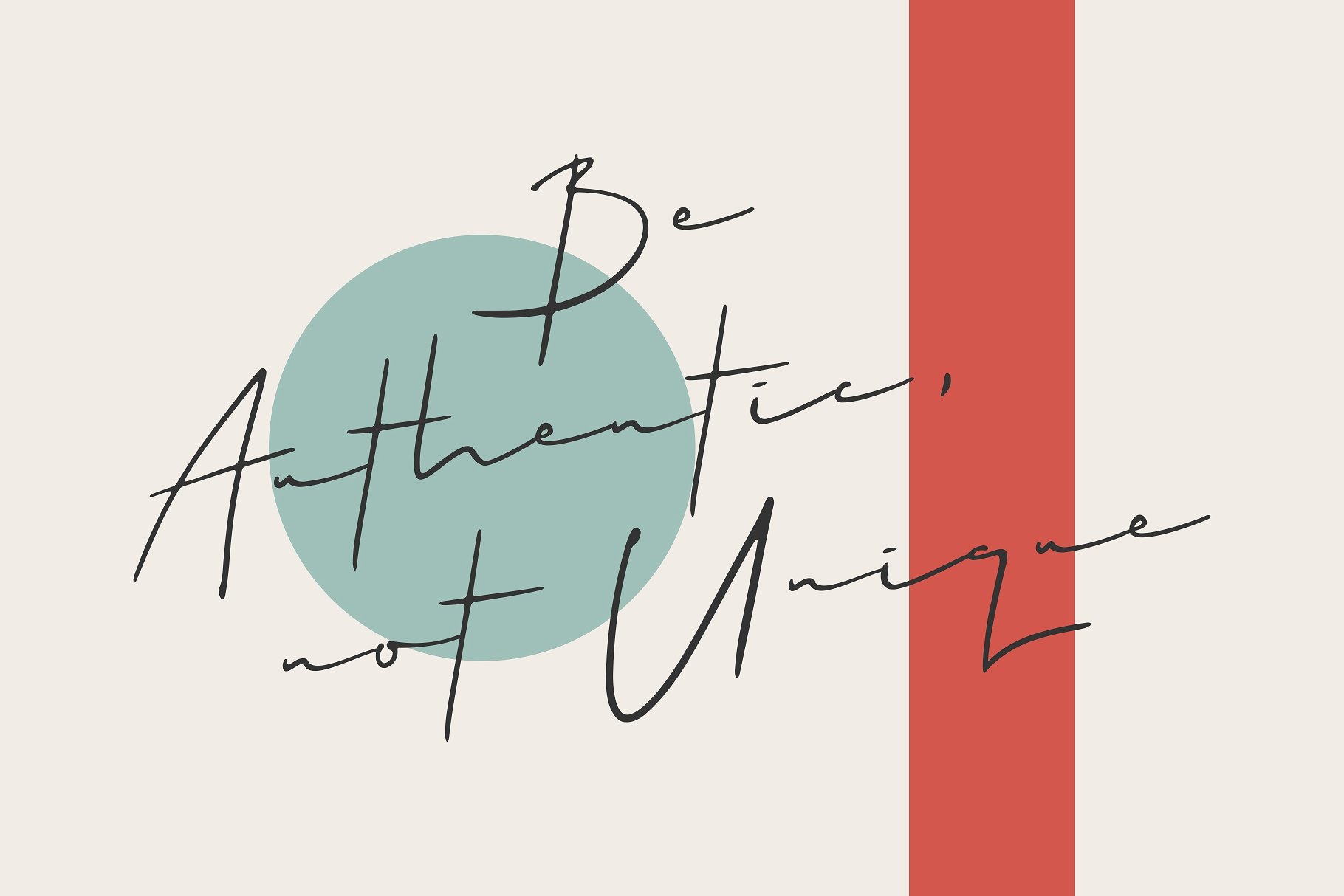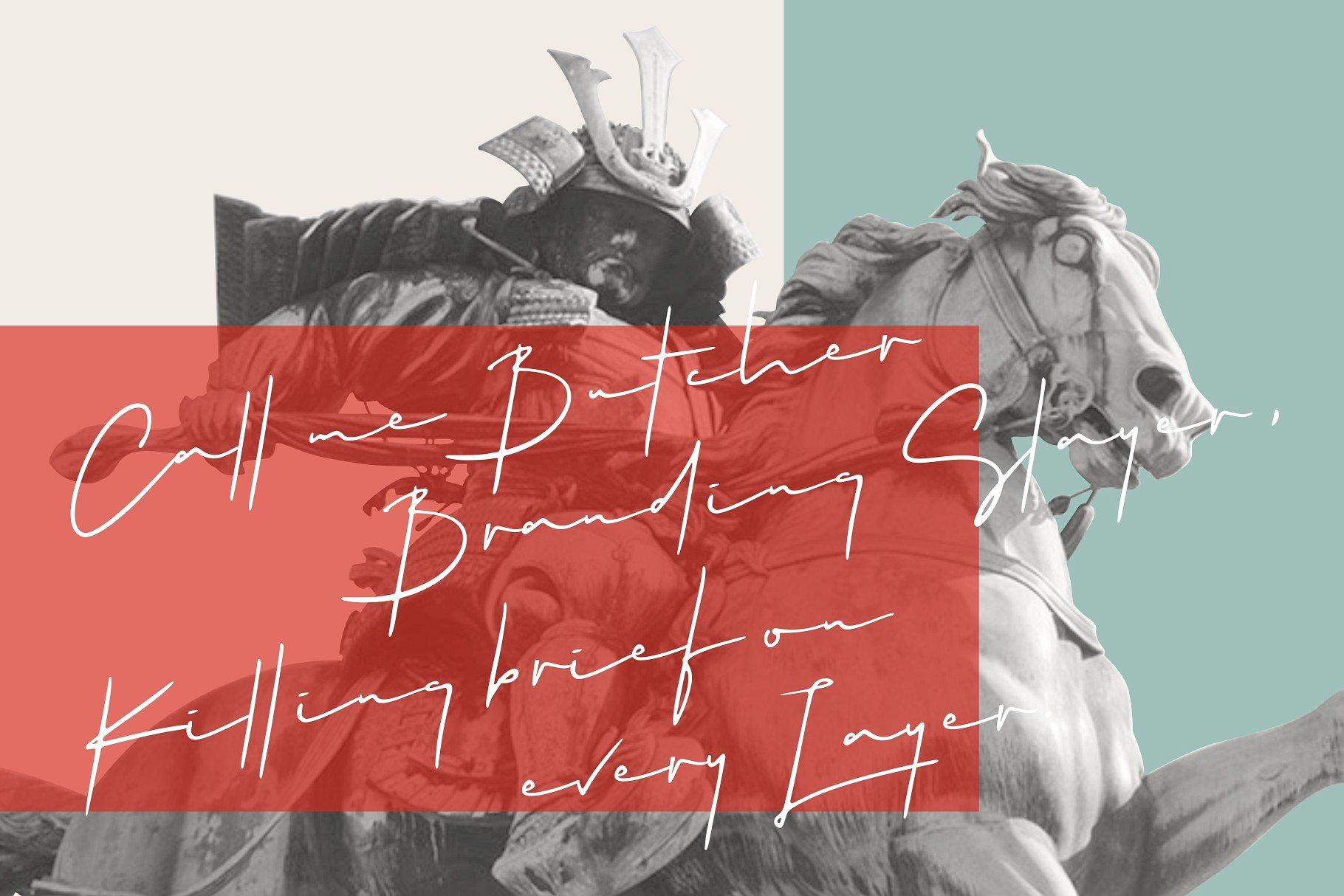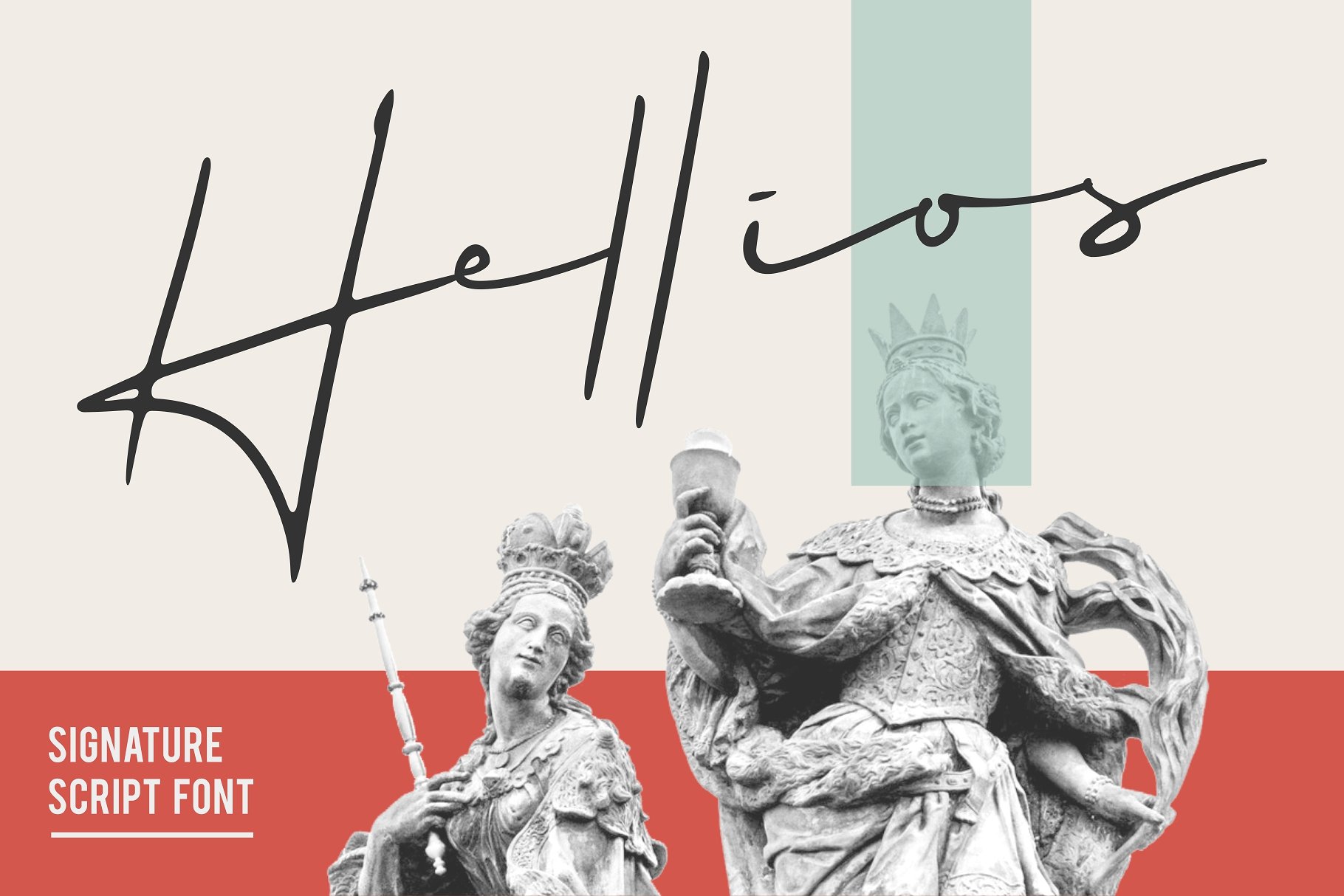
Hellios Handwritten Font
Hellios Signature Font is a Handwritten Script Font with a natural effect of an ink. It has multipurpose value such as digital signature, Branding, Email signature, Quote, and much more.